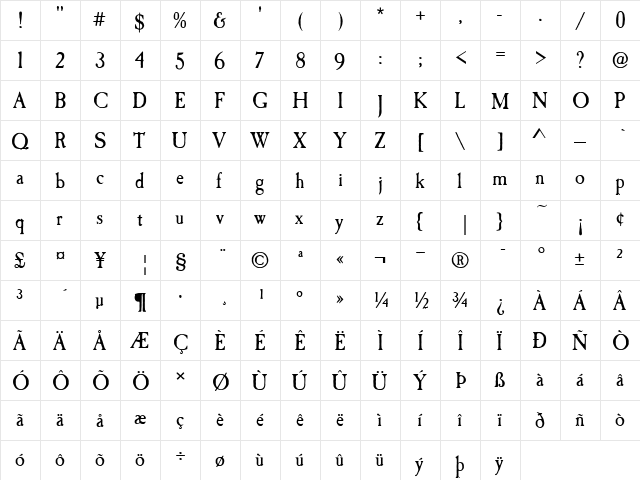
Caslon Antique T Regular
Design Context for Caslon Antique T Typeface
Caslon Antique T wears its vintage influences proudly, with letterforms that recall mid-century signage, classic packaging, and nostalgia-driven design.
Font Pairing: Combine Caslon Antique T with a simple slab or neutral sans — period-accurate companions reinforce the vintage feel without competing for attention.
Pro Tip: Use Caslon Antique T for headlines and pull quotes rather than body copy — its personality is best appreciated in short, focused bursts.